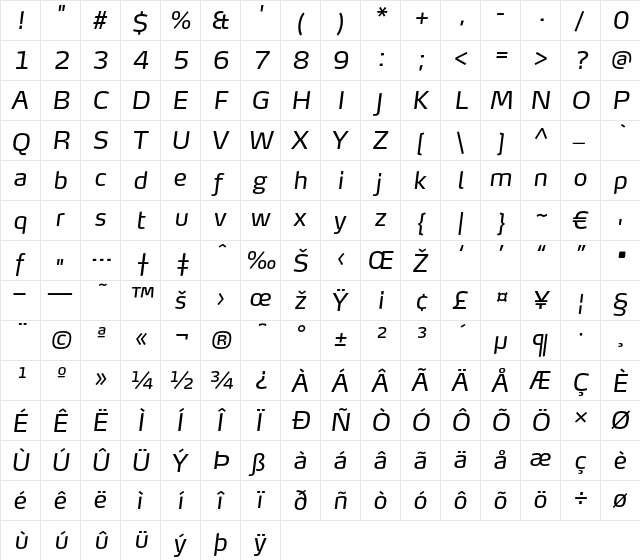
MaxTF-RegularItalic Regular Font Preview
MaxTF-RegularItalic Regular
MaxTF-RegularItalic Regular Font Details
Design Context for MaxTF-RegularItalic Typeface
MaxTF-RegularItalic offers clean, dependable letterforms without strong stylistic allegiance, making it a practical choice for designers who need flexibility. Its italic angle brings a sense of urgency and motion to the letterforms.
Pro Tip: Try MaxTF-RegularItalic for annotation and caption copy alongside an upright companion — the contrast in angle creates a dynamic but ordered typographic system.